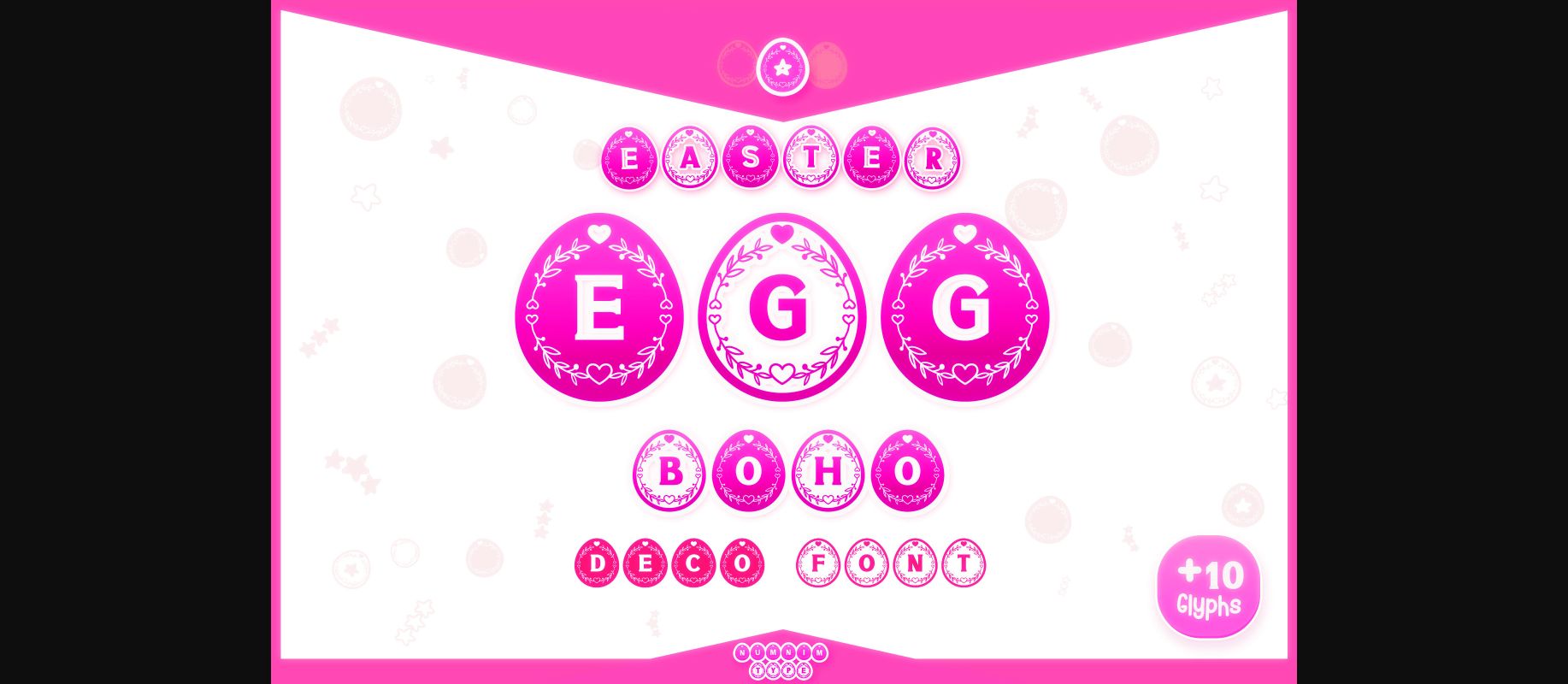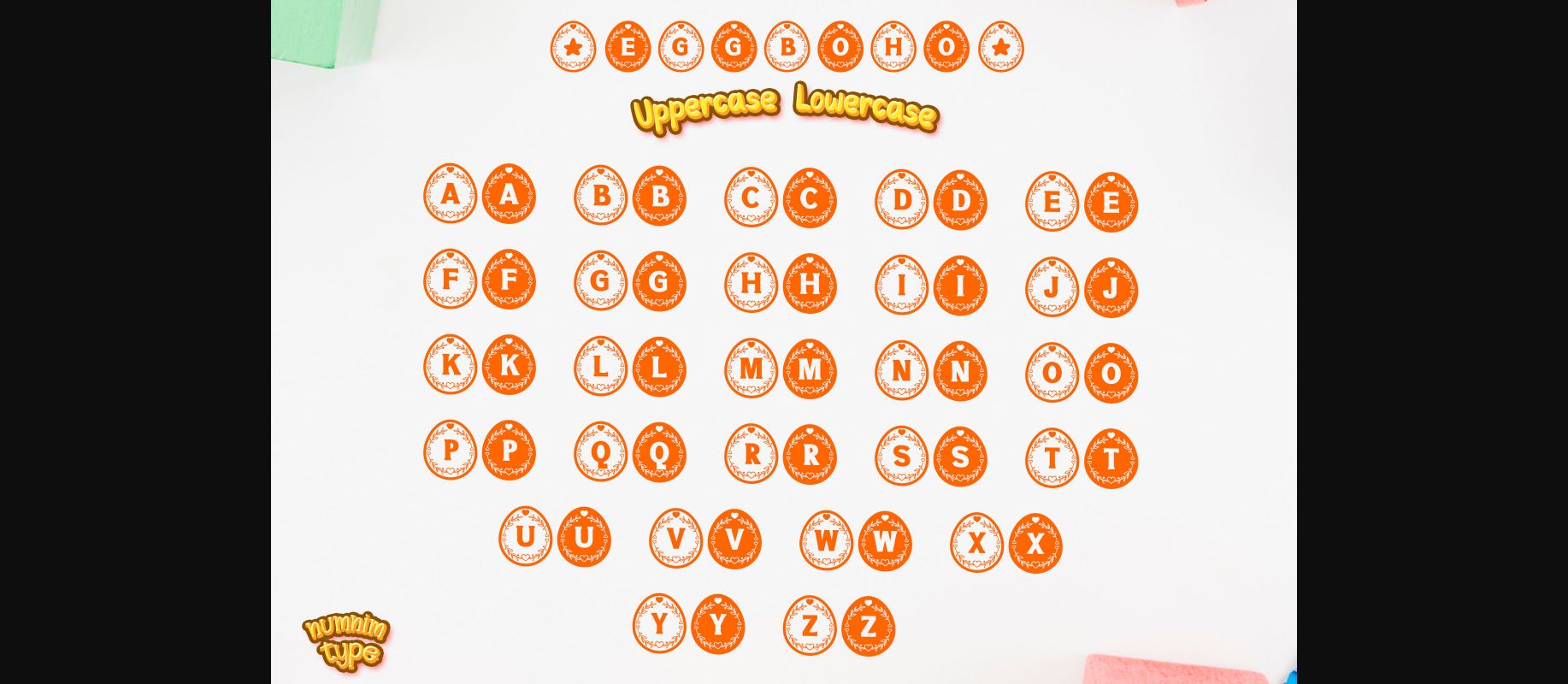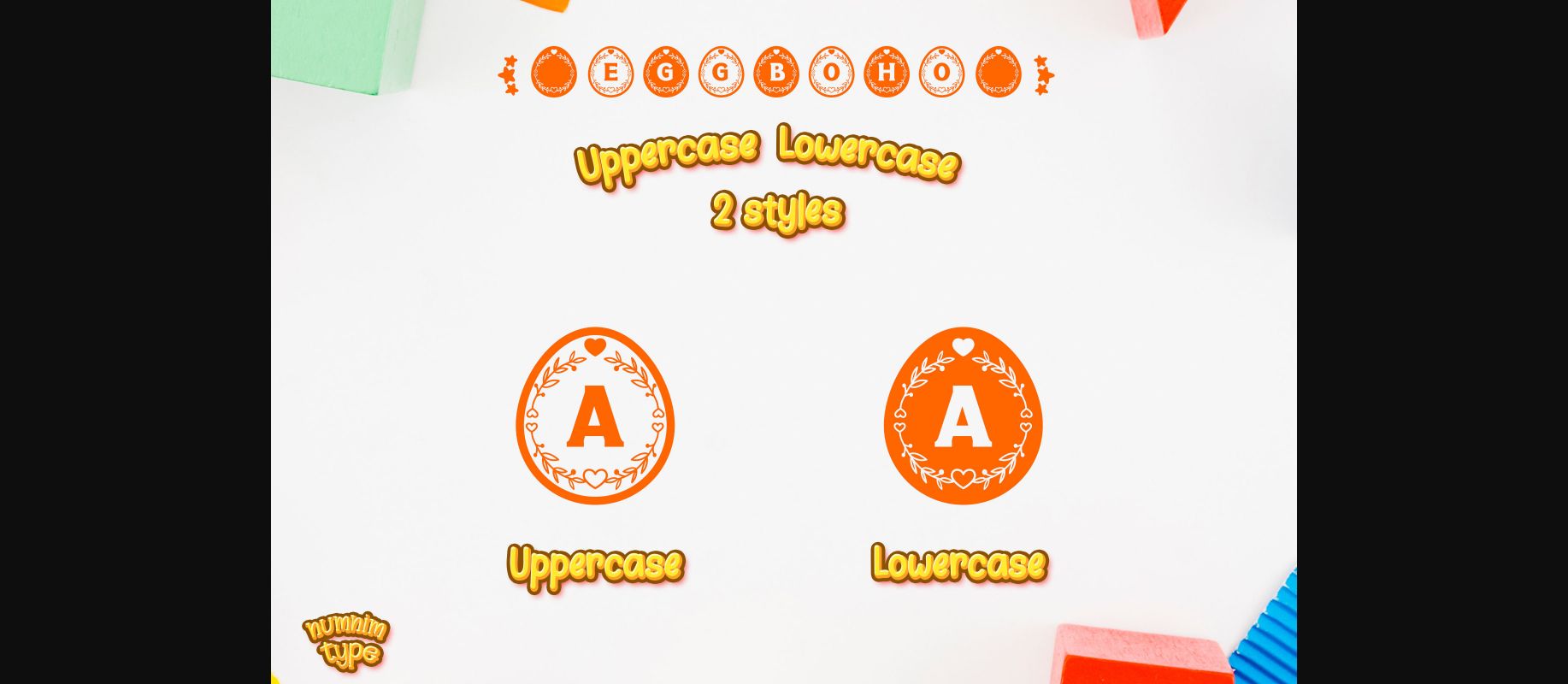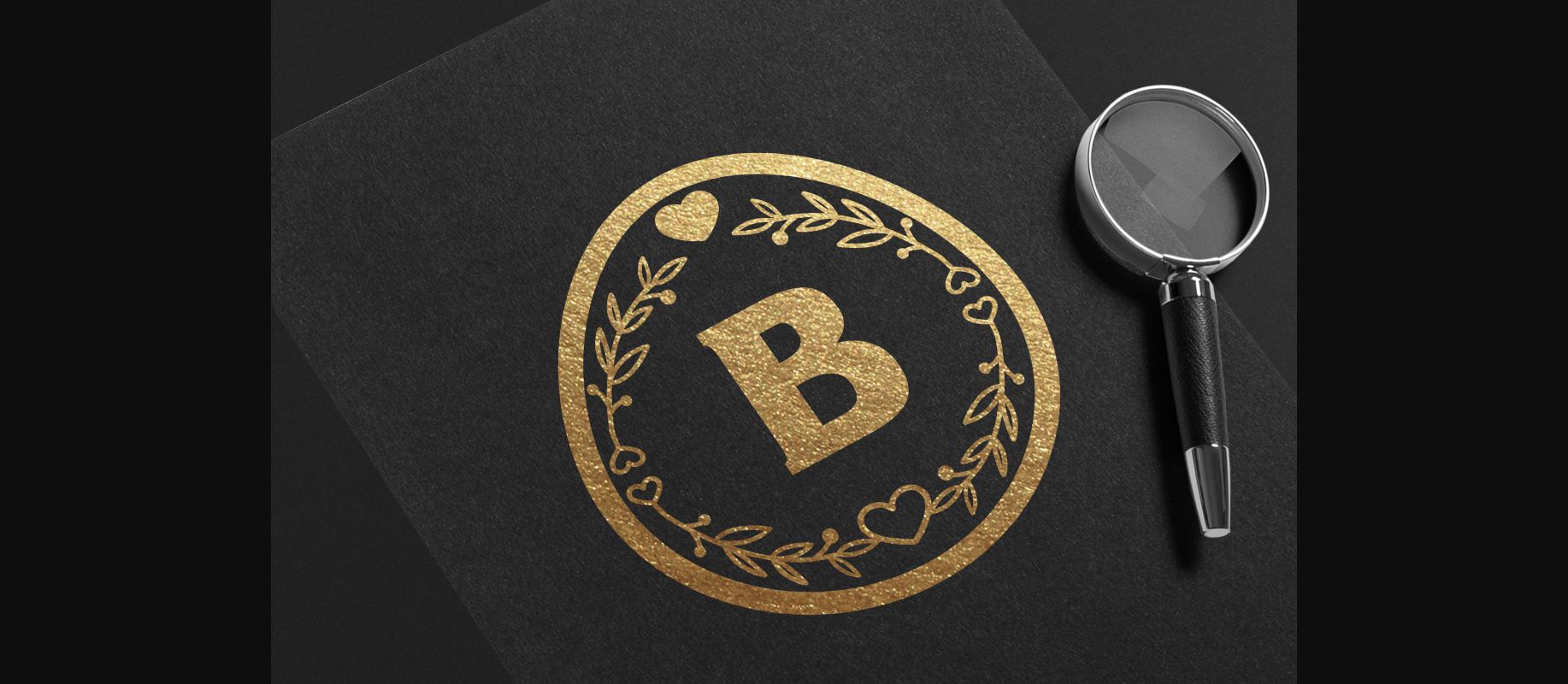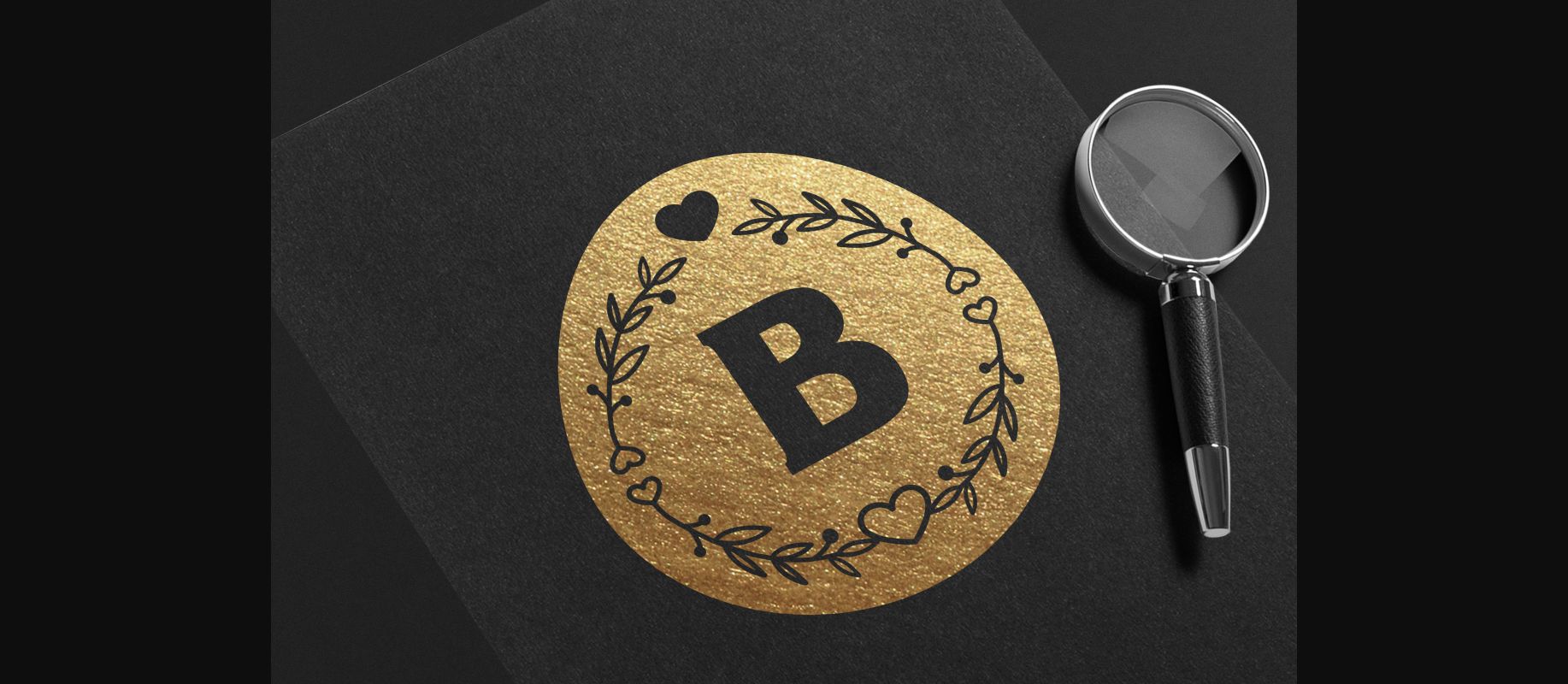
About Easter Egg Boho Font
Easter Egg Boho is a cool and uniquely crafted decorative font. Its fun and playful characters make it the perfect font for stickers, mugs, t-shirts, ornaments, Billiard, Easter Events, cards, event invitations, and more!